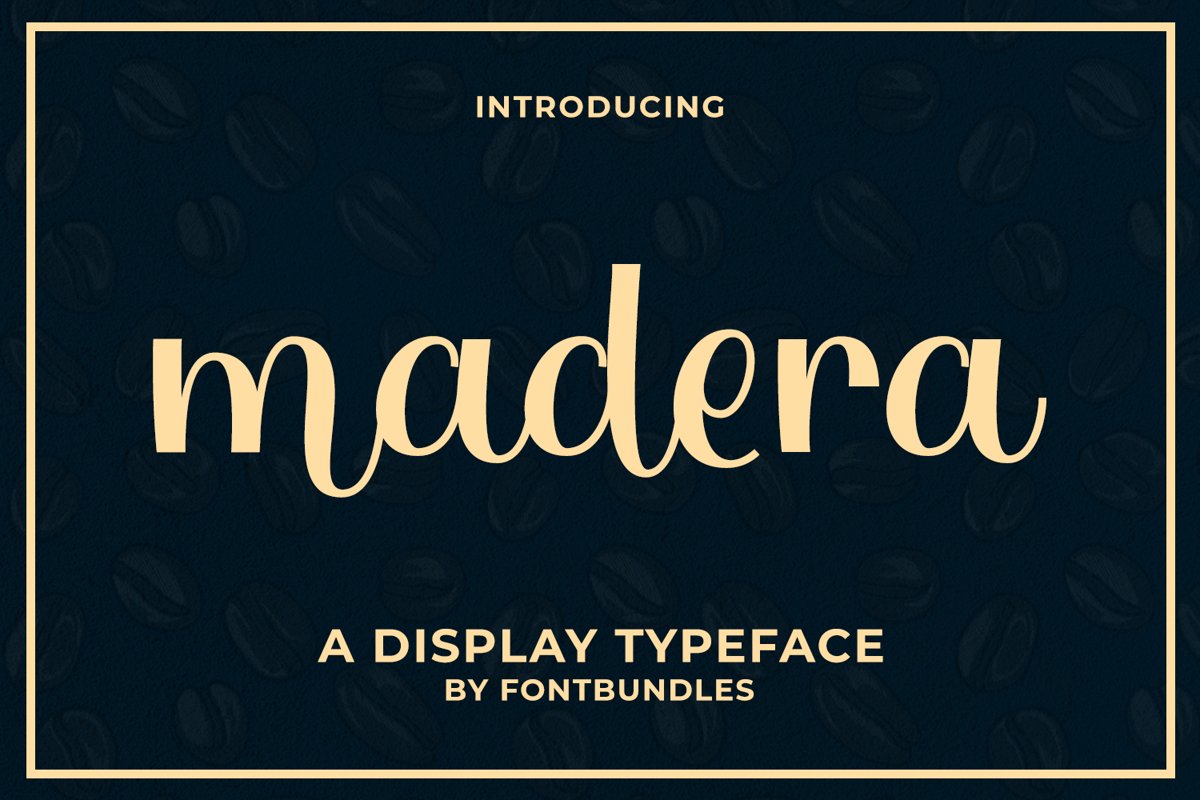
Madera example image 1
Madera is a display Typeface. Perfect for display quotes, logo, logotype, badges, emblem, name card, business card, merchandise, branding, packaging and many more.